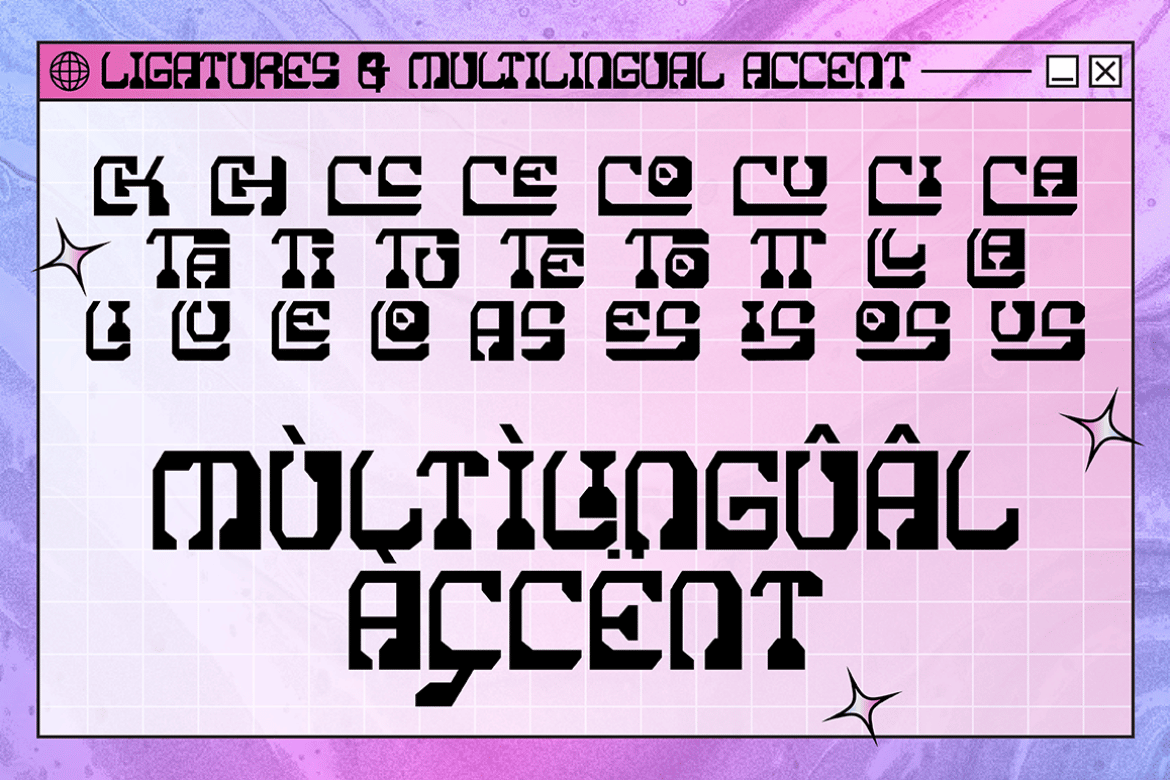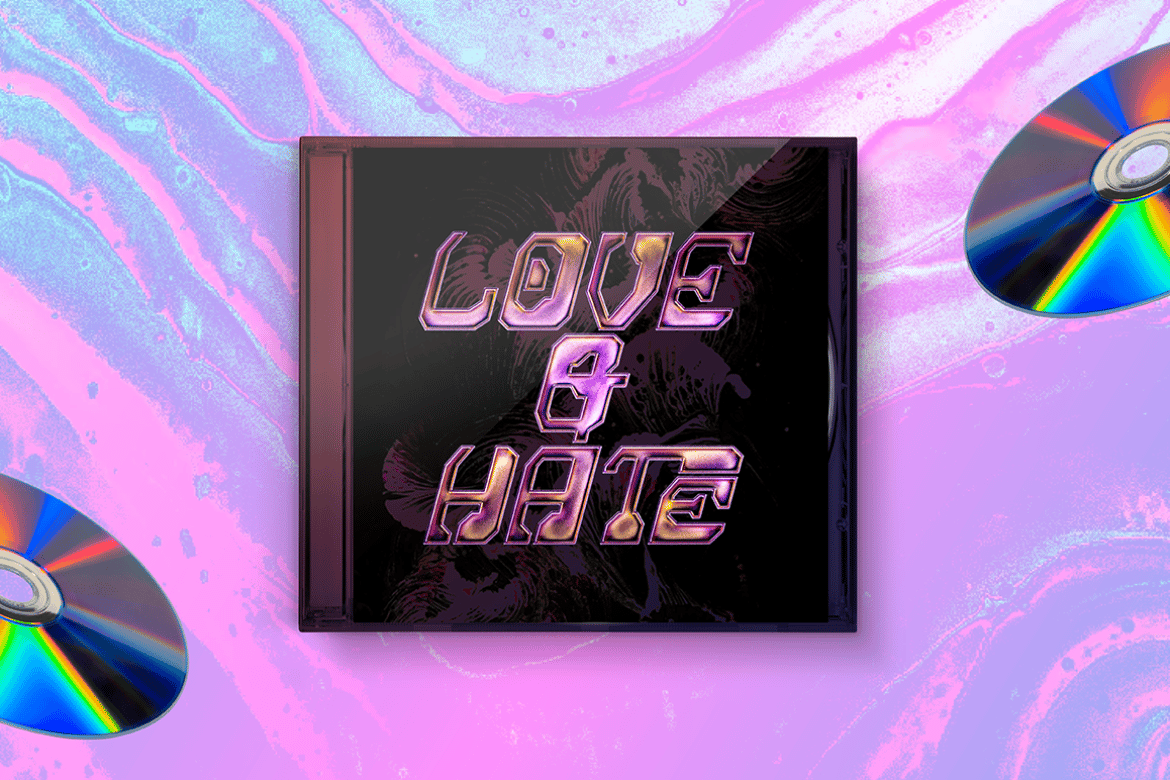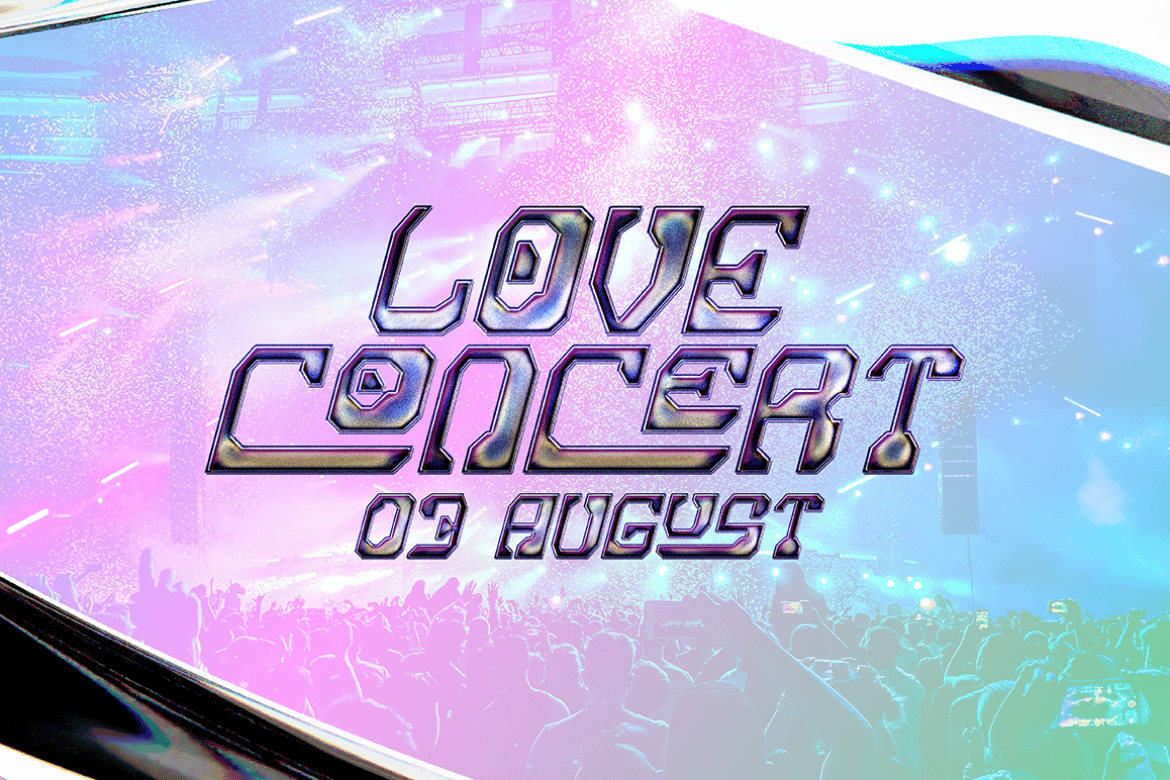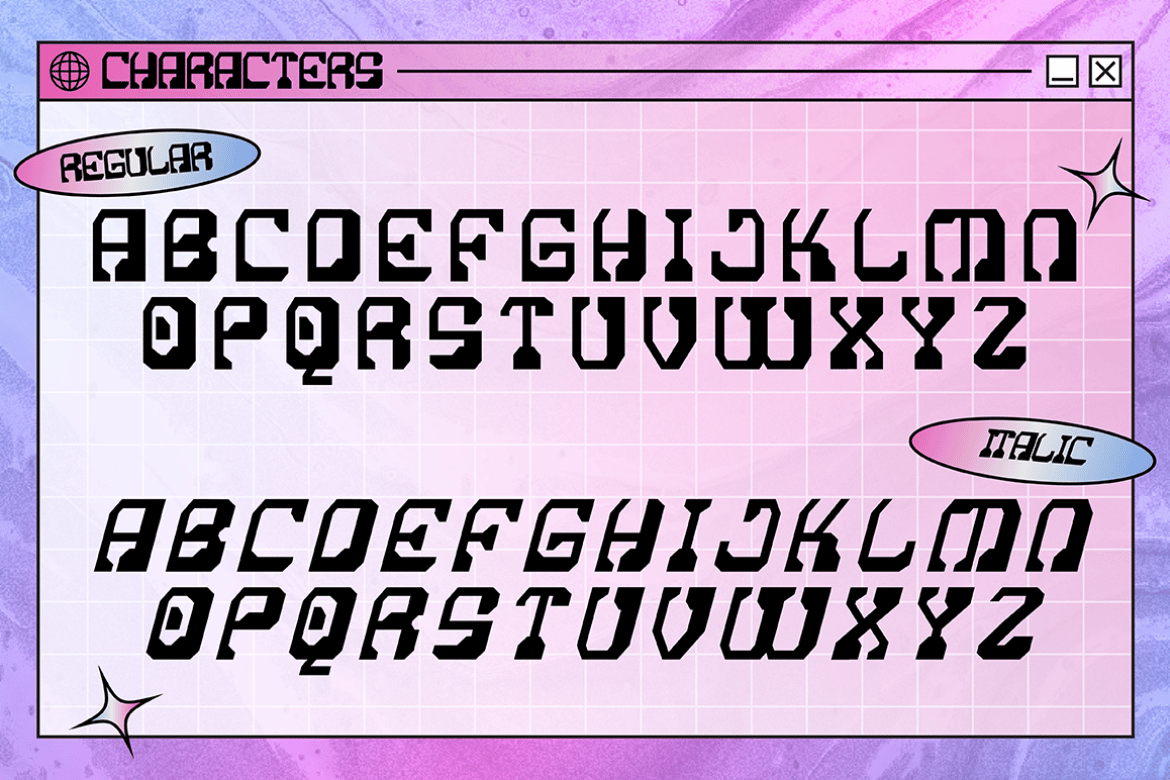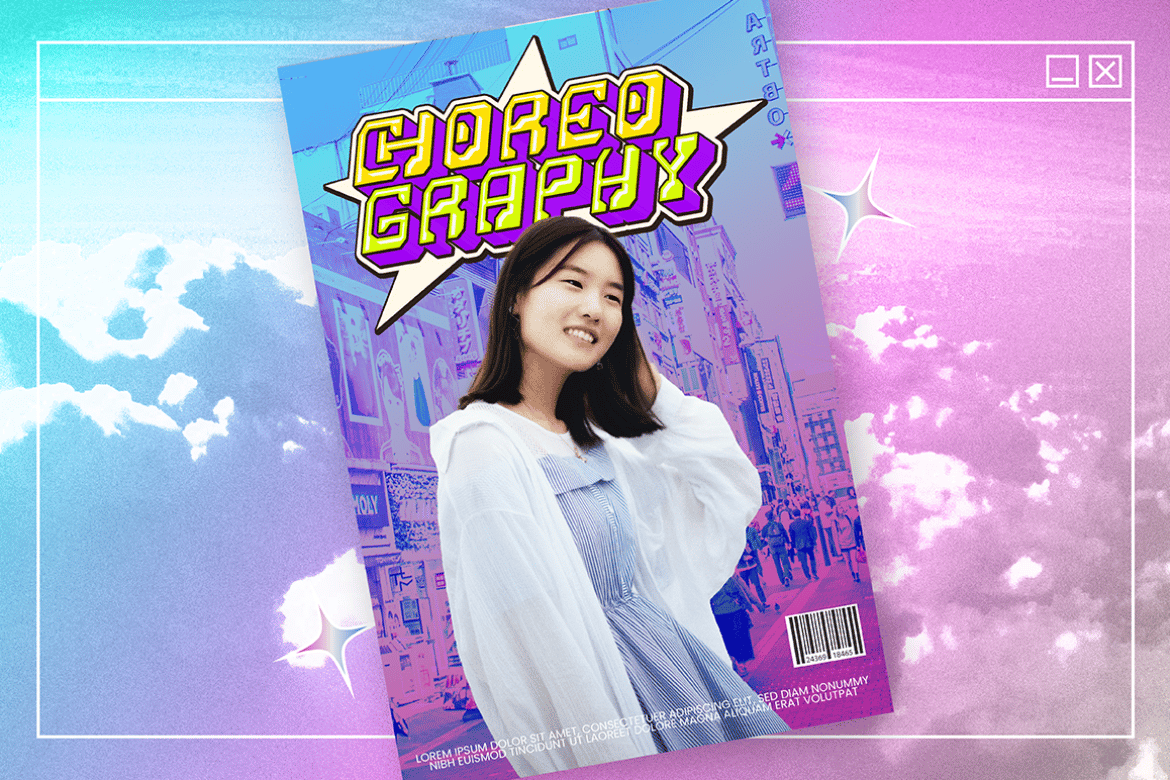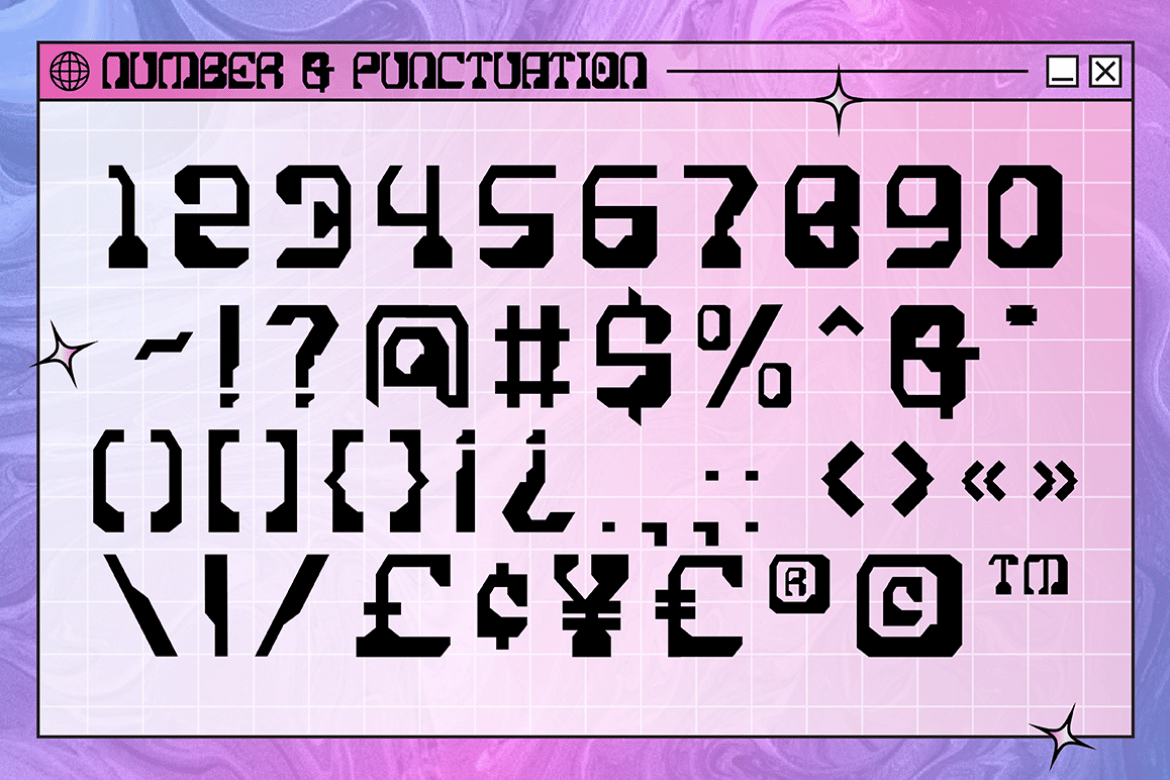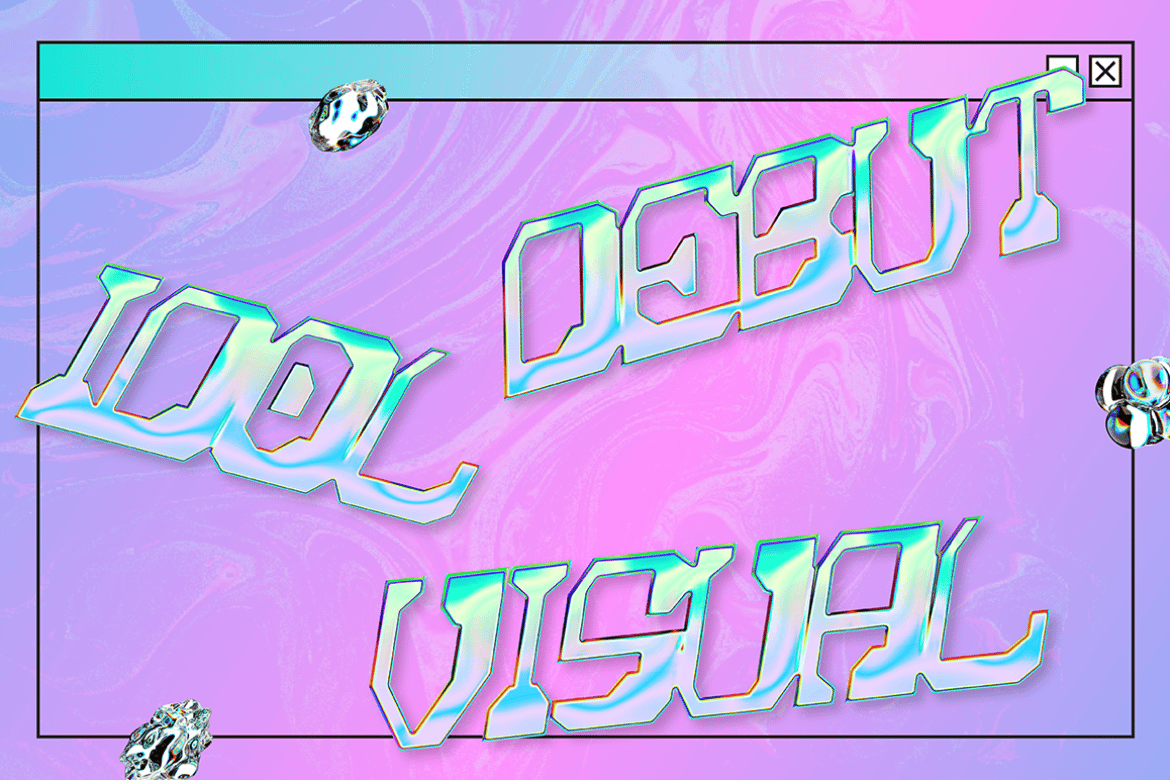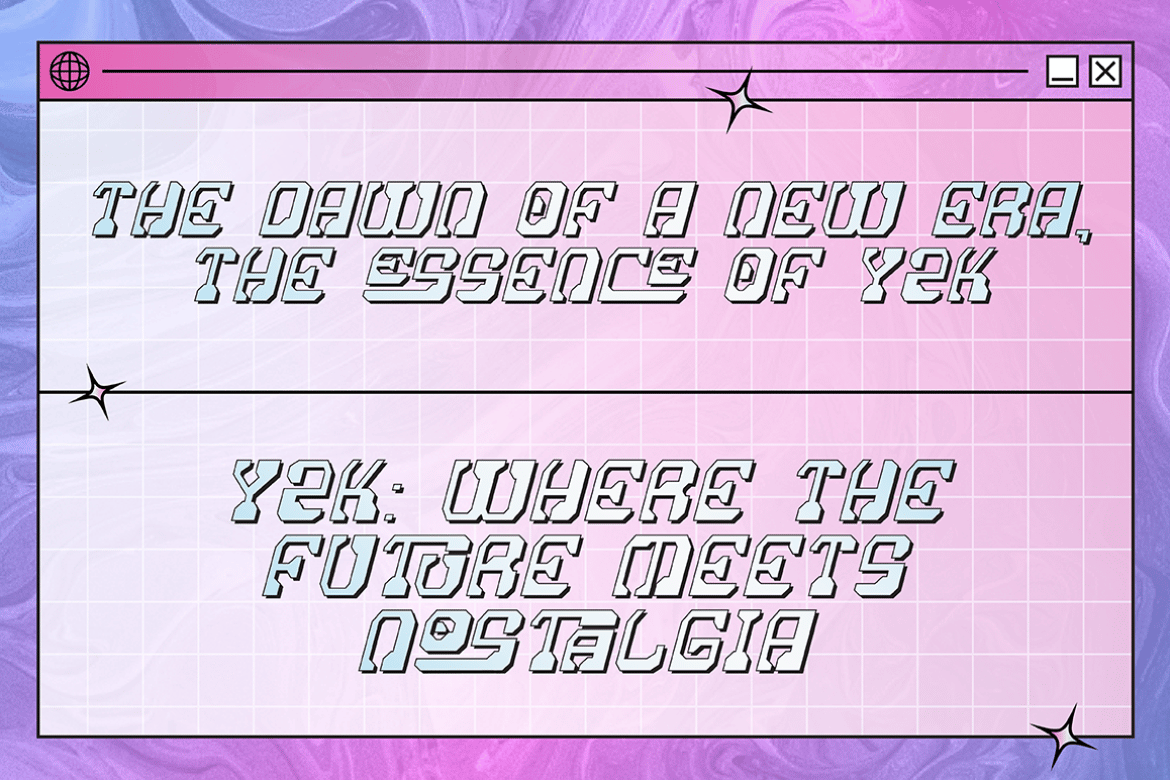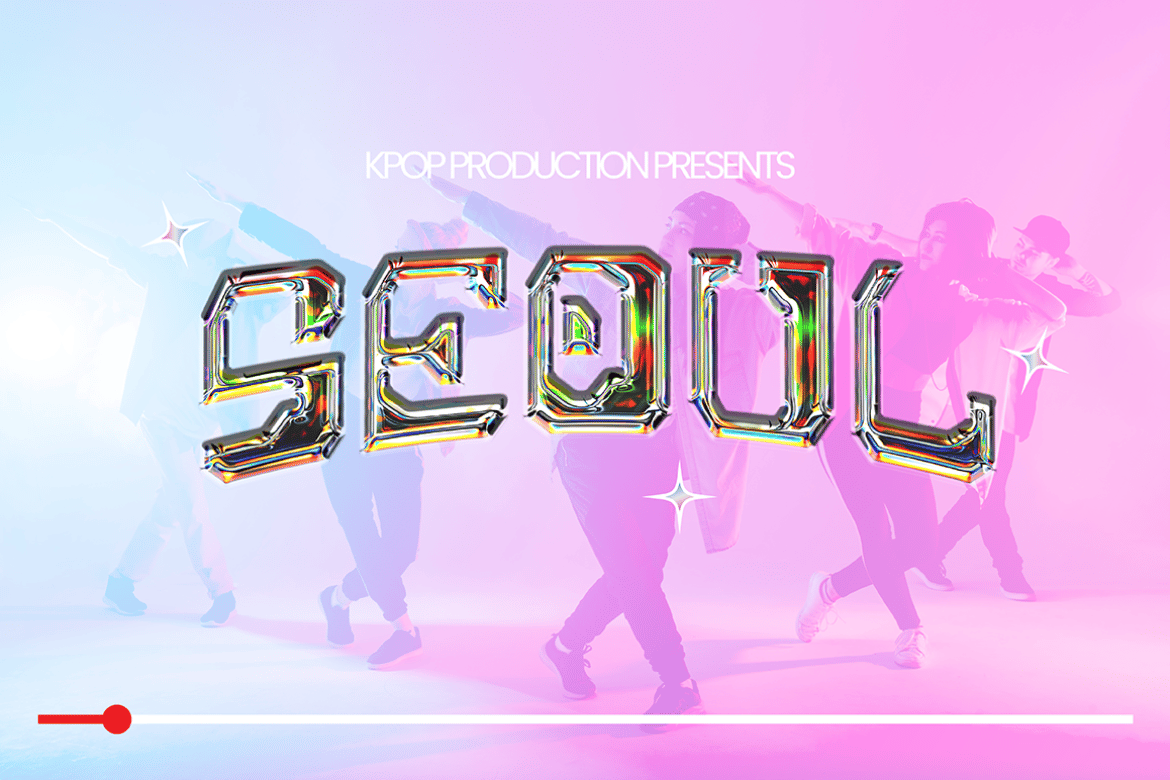
Cosmic Echoes – Y2K Font
Step into a time machine with Cosmic Echoes, a font that captures the vibrant essence of the early 2000s. This retro typeface brings back the playful and energetic vibes of the Y2K era, perfect for adding a touch of nostalgia to your modern designs.
Cosmic Echoes features bold and quirky characters that are inspired by the turn of the millennium. Its unique bubble-like forms and psychedelic influences make it a standout choice for any creative project. Whether you’re designing posters, logos, social media graphics, or branding materials, Cosmic Echoes will infuse your work with a fun and nostalgic flair.